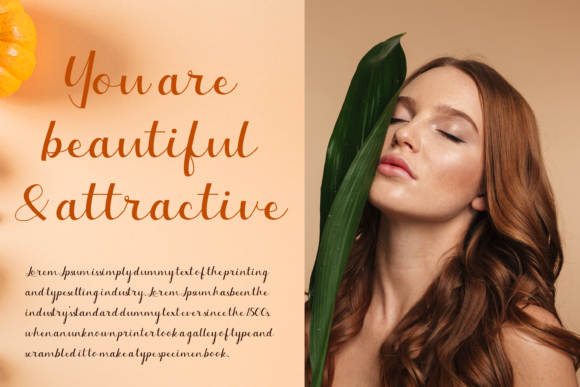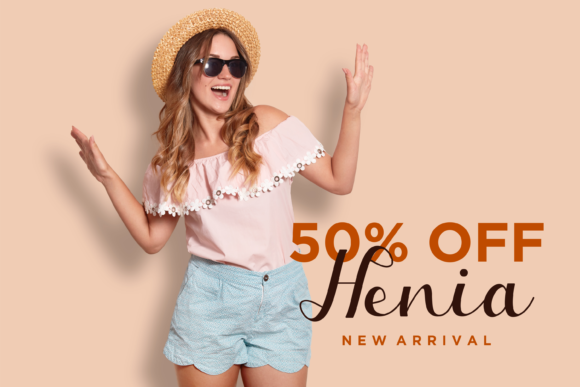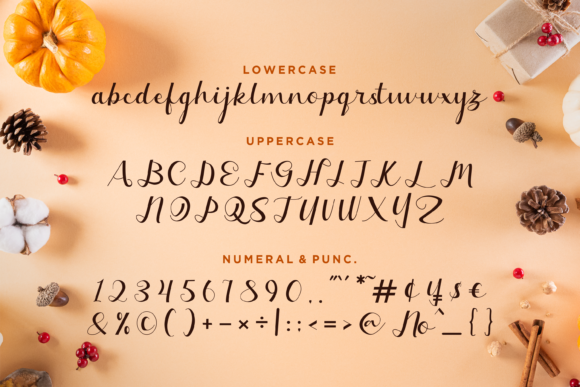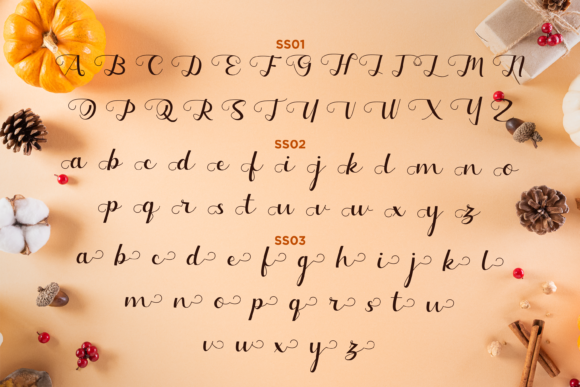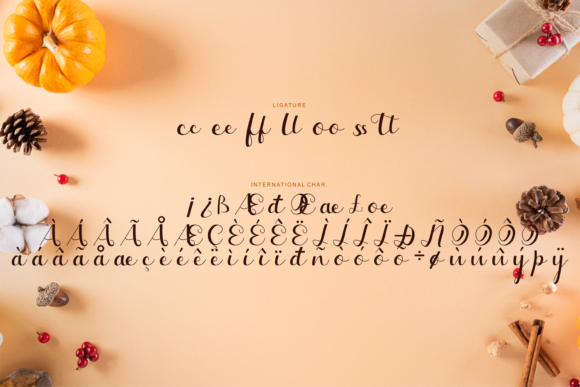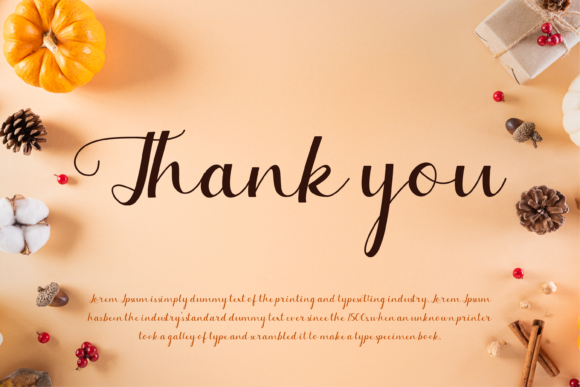
Introduction to Laquitta Font
Have you ever found yourself staring at a blank canvas, trying to decide on the perfect font to bring your creative project to life? For designers, the right font can make all the difference between a good design and a great one. That’s where Laquitta Font comes in – a high-quality, elegant script font that’s sure to elevate your next design project.
Laquitta Font is more than just a pretty face; it’s a valuable design resource that offers a unique blend of timeless classic calligraphy and contemporary style. With its balanced and varied forms, this font is perfect for designers who want to add a touch of sophistication to their work without sacrificing readability.
What sets Laquitta Font apart is its PUA encoding, which allows for easy access to all the glyphs and swashes you need to create a truly stunning design. Whether you’re working on a project with a transparent background or need to add some flair to your text, Laquitta Font is the perfect choice.
Key Features of Laquitta Font
- Unique, elegant script font with a transparent background, perfect for adding a touch of sophistication.
- Includes a wide range of glyphs, making it suitable for both personal and commercial use.
- Perfect for use in logos, invitations, and other creative projects where a touch of elegance is required.
Honest Review: Laquitta Font
I recently stumbled upon the Laquitta Font, and I’m excited to share my honest thoughts on this design resource. This high-quality font is perfect for creative projects where you need a unique touch.
- ✨ The font’s elegant script style makes it perfect for wedding invitations, quotes, and other special occasions.
- ✨ The transparent background allows for easy customization and pairing with other design elements.
- ⚠️ The font may not be suitable for bold or condensed text, as it can lose its elegance.
- ⚠️ The font family is quite limited, with only a few weights and styles available.
Overall, I’m impressed with the Laquitta Font’s unique design and versatility. While it may not be suitable for all projects, it’s an excellent choice for designers looking for a high-quality, free font with a touch of elegance.
Use a transparent background to make the font more versatile and easily editable. Experiment with different font sizes and styles to create a unique look. You can also combine Laquitta Font with other design elements to create a cohesive design.
Laquitta Font is perfect for creating invitations, business cards, and social media graphics. You can also use it to add a personal touch to your blog or website. With its high-quality design and transparent background, Laquitta Font is a valuable resource for any creative project.